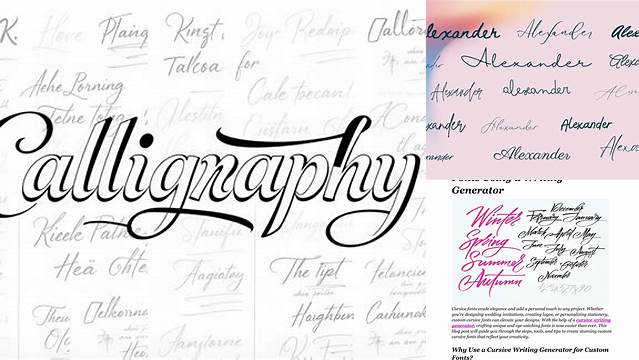
Create Stunning Cursive Fonts With Our Generator
Hey everyone! Are you looking for a way to spice up your designs, projects, or even just your social media posts with a touch of elegance and personality? Well, you've come to the right place! Today, we're diving deep into the world of modern cursive fonts, and I'm going to show you how to generate them using our awesome tool. Forget about boring, run-of-the-mill fonts – we're talking about beautiful, flowing scripts that'll make your work stand out from the crowd. With our modern cursive fonts generator, you can effortlessly create eye-catching text that reflects your unique style. We'll explore everything from the basics of cursive fonts to advanced customization options. Let's get started and make your designs shine! This modern cursive fonts generator is perfect for anyone from graphic designers to hobbyists and beyond, providing an accessible way to bring your creative visions to life with stylish and personalized text. Whether you're crafting invitations, logos, or social media graphics, the right cursive font can make all the difference.
1. Understanding the Allure of Modern Cursive Fonts
Guys, let's talk about why modern cursive fonts are so darn appealing, shall we? There's just something inherently elegant and personal about them, isn't there? Unlike the rigidness of some blocky fonts, cursive fonts flow with a grace that's reminiscent of handwritten letters. This makes them perfect for conveying a sense of sophistication, creativity, and even a touch of romance. Think about it: a beautifully crafted cursive font can instantly elevate the perceived value of your work. It can add a premium feel to your brand, making it appear more polished and professional. Plus, cursive fonts are incredibly versatile. They work well in a variety of contexts, from wedding invitations and logos to website headers and social media graphics.
Modern cursive fonts also have a unique way of connecting with people. They can evoke a sense of nostalgia, reminding us of a time when handwritten notes were the norm. This human touch can be incredibly appealing in a world dominated by digital interfaces. When you use a cursive font, you're not just communicating information; you're conveying emotion and personality. In addition, the use of a cursive font can help to create a visual hierarchy, drawing the reader's eye to the most important parts of your design. They can be used to highlight headlines, create emphasis, and add visual interest. Moreover, cursive fonts can convey a sense of exclusivity and individuality. They set your work apart from the sea of generic fonts and make it uniquely yours. So, are you ready to make your mark with the magic of modern cursive fonts? Then let's go!
1.1 The History and Evolution of Cursive Typography
Alright, let's take a little trip back in time and explore the rich history of cursive typography. Believe it or not, cursive fonts have been around for centuries! They evolved from handwritten scripts, dating back to the days when scribes meticulously penned manuscripts by hand. The beauty of these scripts lies in their fluid, connected letterforms, designed for speed and efficiency in writing. Over time, as printing technology advanced, typographers began to create fonts that mirrored the elegance of handwriting.
In the early days of typography, cursive fonts were primarily used for formal documents, such as legal contracts and important correspondence. The goal was to capture the essence of the human touch while still maintaining readability. With the advent of the printing press, cursive fonts became more accessible, and their popularity grew. Styles and variations emerged. The late 18th and early 19th centuries witnessed the rise of elegant cursive styles, reflecting the refined aesthetics of the era. These fonts often featured elaborate swashes, flourishes, and calligraphic elements. As technology continued to evolve, so did cursive fonts. With the invention of digital typography, designers gained even more freedom to experiment with different styles. Thus, new cursive fonts emerged, ranging from classic scripts to modern, stylized interpretations. The history of cursive typography is a testament to the enduring appeal of handwriting. It showcases the evolution of art.
1.2 Why Modern Cursive Fonts Still Matter in the Digital Age
Despite the rise of digital interfaces and the convenience of typing, modern cursive fonts still hold a special place in our hearts, don't they? Their relevance is undeniable. In a world saturated with generic fonts, cursive fonts stand out as a symbol of personalization. They allow designers and creatives to infuse their work with a unique touch that captures attention. Cursive fonts convey a sense of elegance and sophistication. They can transform the perceived value of a brand or project. They are perfect for creating a premium look that resonates with customers.
They bridge the gap between the digital and the human. They remind us of the warmth and authenticity of handwriting. When used correctly, they can create an emotional connection. Cursive fonts are incredibly versatile, suitable for a wide range of applications. From website headers and social media graphics to logos and invitations, they bring a touch of artistry and style. Modern cursive fonts have also adapted to the needs of modern technology. Today, we have access to countless digital cursive fonts, each with its own unique style and personality. From classic scripts to bold, contemporary designs, there is a cursive font for every project and aesthetic. Ultimately, the enduring appeal of modern cursive fonts lies in their ability to add a touch of personality, sophistication, and human connection to your designs. They're more than just letters; they're statements of style. Are you ready to use these gems?
2. Exploring Different Styles of Cursive Fonts
Let's get into the exciting world of cursive fonts. There's a whole range of styles out there, each with its own unique personality and character. Here's a breakdown of some of the most popular and useful cursive font styles:
2.1 Classic Cursive Fonts: Timeless Elegance
Classic cursive fonts are the go-to choice when you want to evoke a sense of timeless elegance and sophistication. They often feature delicate strokes, elegant curves, and a traditional feel that reminds you of handwritten correspondence. These fonts draw inspiration from calligraphy and traditional handwriting styles, such as the Spencerian script. This makes them perfect for projects such as wedding invitations, formal announcements, and branding projects that seek a touch of refinement. Classic cursive fonts also often include swashes, flourishes, and connecting letterforms. They add to the font's overall grace and visual appeal. These elements help to create a harmonious and fluid text, which makes the writing feel more natural and eye-catching.
In addition, classic cursive fonts often have a higher level of readability, making them suitable for body text in some contexts. They are perfect for creating a sense of trustworthiness, tradition, and sophistication. This can be beneficial when branding projects or designing materials for a formal event. Classic cursive fonts are a reliable choice to create a lasting impression. Classic cursive fonts also offer a wide range of variations, allowing designers to choose a font that perfectly matches their project's tone and style. Whether you prefer a delicate script or a bolder, more formal design, there is a classic cursive font available to suit your needs. Are you ready to add a touch of timeless elegance?
2.2 Modern Cursive Fonts: Contemporary Flair
Here's the fun part: modern cursive fonts are all about infusing your designs with a touch of contemporary flair and personality. They are all about embracing creativity and uniqueness, breaking away from traditional norms and adding a modern spin. They're the perfect choice when you want to create a design that is visually appealing and stands out from the crowd. These fonts often feature bold strokes, unique letterforms, and a sense of playfulness. They are perfect for branding projects, social media graphics, and website designs that need to showcase a trendy and eye-catching look. Modern cursive fonts allow designers to express creativity and innovation.
In contrast to the formal elegance of classic scripts, modern cursive fonts embrace experimentation and unconventional designs. This includes a wide range of styles, from simple, clean lines to bold and expressive brushstrokes. They can even include unique and unconventional connections between letters. This allows designers to choose a font that perfectly matches their project's tone and style, creating a cohesive and engaging visual experience. When used strategically, modern cursive fonts can add a sense of visual interest and creativity to your work. They are the perfect choice for creatives who want to push the boundaries of traditional design.
2.3 Brush Script Fonts: The Artistic Touch
Let's dive into brush script fonts, which add a touch of artistry and a handcrafted feel to your designs. These fonts are inspired by brushstrokes, featuring thick and thin strokes that mimic the look of a brush or marker. This makes them perfect for projects that need a sense of authenticity, personality, and visual flair. They are perfect for creating a sense of warmth and informality, which makes them suitable for various applications. Brush script fonts often showcase imperfections, which enhance their handcrafted look.
Brush script fonts are ideal for logos, social media graphics, and packaging designs, especially for brands that want to convey a personal and artistic message. They are able to add a sense of creativity and individuality, helping your designs stand out from the crowd. The inherent fluidity of brush script fonts can add movement and a sense of liveliness to your designs, grabbing the audience's attention. These fonts are also versatile, adaptable to a variety of design projects, from invitations to website headers.
2.4 Calligraphy-Inspired Fonts: The Art of Lettering
Calligraphy-inspired fonts are all about capturing the beauty and precision of hand-lettering. Drawing inspiration from calligraphic traditions, these fonts feature elegant curves, precise strokes, and a sense of artistry. This makes them perfect for projects that need a touch of sophistication, refinement, and a strong visual impact. Whether you want to design wedding invitations or create branding materials, calligraphy-inspired fonts are sure to provide a unique touch. The fine strokes, elegant details, and artistic precision of these fonts set them apart from the usual scripts.
Calligraphy-inspired fonts are meticulously crafted to emulate the fluidity and beauty of calligraphy. These fonts capture the essence of hand-lettering. This makes them stand out due to their high level of detail. Calligraphy-inspired fonts are suitable for adding a touch of refinement. When you use them, you add an element of luxury. They're the perfect choice for a logo. They also convey a sense of artistry and craftsmanship, allowing designers to create a truly unique and memorable visual experience. These fonts can add a touch of sophistication. If you want to make a lasting impression, calligraphy fonts are the perfect option.
2.5 Casual Cursive Fonts: Friendly and Approachable
Casual cursive fonts are your go-to choice when you want to convey a friendly, approachable, and informal tone in your designs. These fonts prioritize readability and a relaxed style, with less emphasis on formality. They're perfect for projects that aim to create a sense of warmth, friendliness, and approachability. These fonts are often associated with comfort. Casual cursive fonts are ideal for personal projects, informal communications, and designs that want to establish a friendly connection with the audience.
Casual cursive fonts are great for various applications, including social media posts, website content, and branding materials. They're designed to be easy to read while still maintaining a touch of personality and style. These fonts often feature more rounded letterforms and less elaborate flourishes, making them ideal for body text or longer passages. Casual cursive fonts can add a personal touch and create a positive visual experience for the user. In essence, these fonts are a great way to communicate in a friendly and engaging manner. Do you want to add a personal touch?
3. Using Our Modern Cursive Fonts Generator: A Step-by-Step Guide
Alright, let's get down to the nitty-gritty and learn how to use our modern cursive fonts generator. It's super easy to use, even if you're a complete beginner. Follow these steps, and you'll be creating beautiful cursive text in no time!
3.1 Accessing the Generator and Understanding the Interface
First things first, you'll need to access our modern cursive fonts generator. Just head over to the website, and you'll find it right there. Once you're in, take a moment to familiarize yourself with the interface. It's designed to be user-friendly and intuitive, but a quick overview will help you get started. You'll typically find a text input field where you can type in the text you want to convert to cursive. There are also options for customizing the font style, size, and other design elements.
Typically, you'll see a preview area. This allows you to see the result of your changes in real-time. This is very helpful for experimenting with different styles and settings. The interface might also include options to download your generated text in various formats, such as images or vector files. Understanding the interface allows you to get the most out of the tool, creating stunning cursive text that meets your design needs. Are you ready to get started?
3.2 Entering Your Text and Basic Customization Options
Once you're in the generator, the next step is to enter your text. Simply type the words or phrases you want to convert into cursive into the designated text input field. Then, you can explore the basic customization options, which are typically easy to understand. These usually include selecting a modern cursive font from a variety of available styles. You can choose different fonts, experimenting until you find one that fits your design needs. You can adjust the font size, which will affect the overall appearance of your text.
Then, explore the options to adjust the kerning (the spacing between letters) and leading (the space between lines). This can dramatically influence the readability and visual appeal of your text. Try a few different settings until you achieve a harmonious and visually pleasing result. These basic customization options offer the foundation for creating your own modern cursive fonts. Experiment with different combinations of font styles, sizes, and spacing to get the best result. Are you ready to create unique text?
3.3 Advanced Customization: Fine-Tuning Your Cursive Text
Now, let's dive into the advanced customization options to really fine-tune your cursive text. Our generator probably offers more in-depth controls. These often include options for adjusting the slant and width of the letters. This can give your text a more personalized or stylish feel. Many generators also allow you to manipulate the spacing between letters. You can fine-tune individual letterforms to achieve your desired aesthetic.
Some generators let you add specific effects, like shadows, outlines, or textures, to your text. This adds depth and visual interest. You can also often adjust the color and opacity of your text to match the overall design scheme. Fine-tuning your cursive text involves using these advanced features to create truly unique and visually striking designs. Are you ready to explore these options?
3.4 Previewing and Downloading Your Generated Font
Once you've customized your cursive text, it's time to preview your design. In most generators, you'll see a real-time preview of your text as you make adjustments. Use this preview to review your text, ensuring that the font, size, and spacing look just right. If you need to make any changes, go back to the customization options and tweak the settings until you're satisfied with the result. Once you are happy, you can download your generated font.
Most generators let you download your text in several formats, such as PNG, JPG, or SVG files. These formats make it easy to integrate your custom cursive text into your designs. Once downloaded, you can use your text in a variety of projects, including graphic designs, social media posts, or website designs. Congratulations, you're on your way to using modern cursive fonts.
4. Creative Uses of Modern Cursive Fonts
Now that you know how to generate them, let's explore the awesome creative uses of modern cursive fonts.
4.1 Designing Eye-Catching Logos and Branding Materials
Modern cursive fonts are a fantastic choice for designing eye-catching logos and branding materials. They add a touch of elegance, personality, and sophistication to your brand. Imagine creating a logo that's memorable and easily recognizable. A well-chosen cursive font can instantly set your brand apart, especially if you are in a creative industry, such as beauty, fashion, or art. Cursive fonts create a sense of authenticity and creativity.
They can be used in business cards, brochures, and packaging designs. This will help your brand to stand out. Also, modern cursive fonts can add a unique touch to your website's branding. You can use them in the header or other prominent areas. If you use cursive fonts, your brand's voice comes to life. It makes your branding materials not only visually appealing but also memorable and engaging. In addition, cursive fonts can be used in conjunction with other design elements.
4.2 Creating Stunning Invitations and Greeting Cards
Want to make your invitations and greeting cards extra special? Modern cursive fonts can help with that! They are the perfect choice when you want to create a sense of elegance and thoughtfulness. They add a touch of artistry, making your invitations stand out from the typical, generic designs. Whether you're designing wedding invitations, birthday cards, or holiday greetings, a well-chosen cursive font can create a lasting impression. Cursive fonts evoke a sense of romance and sophistication.
They're perfect for adding a touch of personalization. They can create a sense of exclusivity and care. Also, you can pair modern cursive fonts with beautiful layouts. You can incorporate design elements such as floral illustrations, elegant borders, or other embellishments. This helps to elevate your invitations. By using cursive fonts, you can transform simple cards into cherished keepsakes. These will be remembered and treasured by the recipients. Are you ready to create special invitations?
4.3 Enhancing Social Media Graphics and Content
Modern cursive fonts are excellent for enhancing your social media graphics and content, giving your posts a unique and stylish edge. They make your content more visually appealing and memorable. Cursive fonts can make your social media graphics stand out.
This helps attract followers. They can be used to create quotes, captions, or headings. This can bring your content to life. They will help you establish a strong brand presence. Modern cursive fonts are perfect for creating Instagram stories, Pinterest pins, or Facebook posts. They are versatile and can be adapted to a wide range of content. Modern cursive fonts make your content more shareable. You will engage your audience and get better visibility. This is the key to your social media success.
4.4 Designing Website Headers and Navigation Elements
Modern cursive fonts are a smart choice for designing website headers and navigation elements. They add a touch of elegance and sophistication, helping to create a visually appealing and engaging user experience. If you use a well-chosen cursive font for your website header, it will set the tone for your entire site. You'll convey professionalism and creativity. They're especially effective for websites in creative industries, like art, fashion, or design. They contribute to a strong brand identity.
They can also enhance the website's overall aesthetic appeal, which can boost the user experience. This can lead to increased engagement. In addition to headers, cursive fonts can be used in navigation elements, such as menu items. It can also be used in calls-to-action. It's important to balance style with readability when using cursive fonts in web design. Modern cursive fonts can be a powerful tool to elevate your website's design and improve the user experience.
4.5 Adding a Personalized Touch to Print and Digital Designs
Are you looking for a way to add a personalized touch to your print and digital designs? Modern cursive fonts are the perfect solution! Whether you're designing posters, flyers, or digital presentations, a well-chosen cursive font can make your designs feel unique. Cursive fonts add a human element to your work. They evoke a sense of warmth and authenticity. You can use them to add a touch of elegance.
They can convey a sense of playfulness, depending on the font style. For print designs, cursive fonts can add a personalized touch to greeting cards, invitations, or event announcements. In digital designs, they can be used in social media graphics, blog headers, or website banners. They add visual interest, ensuring that your content stands out from the crowd. They help to create a memorable experience. Modern cursive fonts are an excellent way to transform your design and add personality.
5. Tips for Choosing the Right Cursive Font
Choosing the right cursive font can be a game-changer for your designs. Let's explore some tips to make the best selection.
5.1 Considering Readability and Legibility
Readability and legibility are super important when choosing a cursive font. No matter how beautiful a font is, if people can't easily read it, it won't be effective. This is especially crucial for longer text passages. Consider the context. If you're using the font for headings, readability might not be as crucial as when you are designing body text.
Make sure the font size is appropriate for the intended use. Avoid fonts with overly elaborate letterforms or excessive connections that might make them difficult to read. Test the font at various sizes and in different contexts to ensure it is readable in your design. Choosing a readable font guarantees that your message is easily understood. This increases the chances of engaging your audience and creating the desired impact.
5.2 Matching the Font to Your Project's Tone and Style
Matching the font to your project's tone and style is another key factor. Consider the overall message you want to convey. Is it formal, casual, elegant, or playful? The font you choose should reflect this tone. For formal projects, such as wedding invitations, opt for classic cursive fonts. Choose fonts with a sophisticated and timeless appearance. For more casual projects, like social media graphics or greeting cards, choose fonts with a relaxed and approachable style.
Experiment with different font styles until you find one that aligns with your project's personality. If your project has a specific theme or target audience, choose a font that complements those elements. Matching the font to your project's tone and style enhances the visual consistency. It strengthens your message and creates a more cohesive and engaging experience for your audience.
5.3 Experimenting with Different Font Combinations
Experimenting with different font combinations can elevate your design. Selecting the right combination can create a harmonious and visually appealing layout. Don't be afraid to mix and match different fonts. Combine a modern cursive font with a contrasting font to add visual interest. It's best to use a simple font for body text. This ensures the readability of the content. When choosing font combinations, make sure the fonts complement each other. They should work well together.
Consider the font's style and weight. Ensure they align with the overall aesthetic. Experiment with different combinations of font styles. The fonts should complement the look and feel of your design. Choosing the right font combinations can enhance the visual impact of your project. You'll create a balanced and engaging design.
5.4 Understanding Font Licensing and Usage Rights
Understanding font licensing and usage rights is essential for ethical and legal use. Before using any font, make sure you understand its license. Free fonts often have limited usage rights, while commercial fonts typically offer broader usage. Review the terms. Determine the license and usage restrictions, especially if you are using the font for commercial purposes. Understand whether you need to purchase a license or if the font can be used for free.
Make sure you credit the font designer. This shows respect for their work. By complying with font licensing agreements, you will avoid legal issues. You'll ensure that you respect the intellectual property rights of the font designers. By following these guidelines, you can use fonts legally. This will enhance your design work.
6. Resources for Finding and Using Cursive Fonts
Ready to start your search for the perfect cursive font? Let's explore some resources to get you started!
6.1 Websites and Platforms for Cursive Font Downloads
There are several websites and platforms that offer a wide selection of cursive font downloads, each with its own unique features and advantages. Here are some of the most popular options: Google Fonts offers a wide range of free, open-source fonts. It is an excellent resource for a variety of design projects. Font Squirrel offers a curated selection of high-quality, free fonts. It also provides helpful information about licensing.
Creative Market offers a wide variety of premium fonts. These fonts are available for purchase. This is a great option if you are seeking for a professional look. Adobe Fonts, formerly Typekit, is another premium option. It provides access to a vast library of fonts as part of your Adobe Creative Cloud subscription. DaFont is a popular site with a vast collection of free and paid fonts. It also allows you to preview fonts. These resources are the perfect places to start your quest for beautiful cursive fonts.